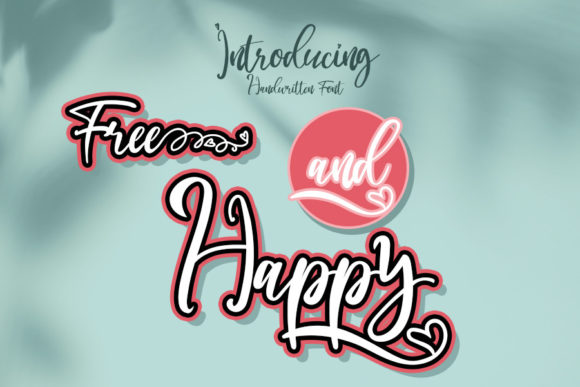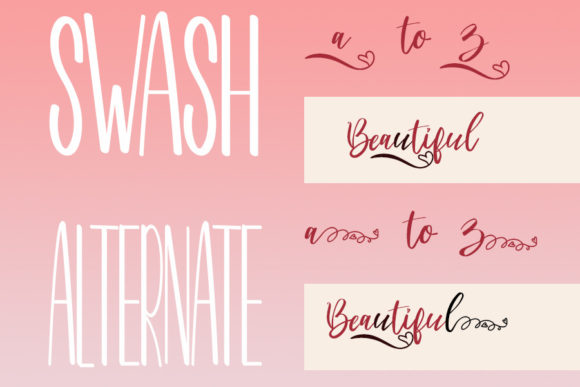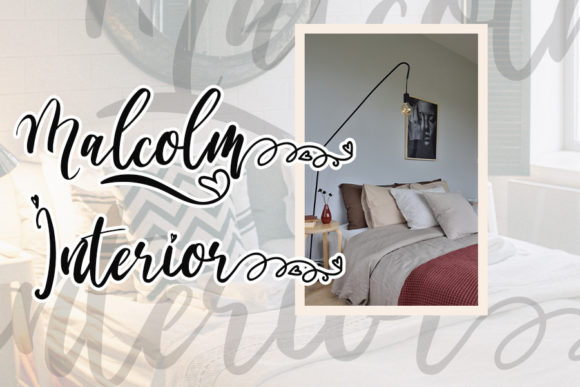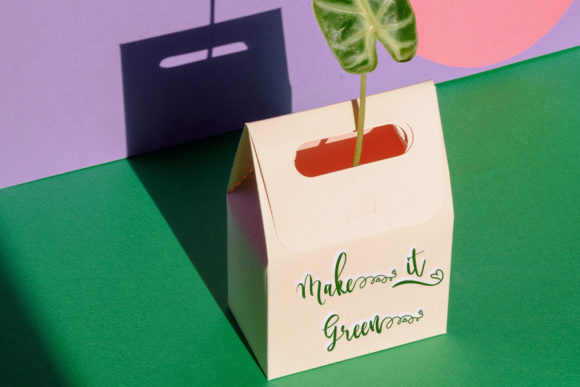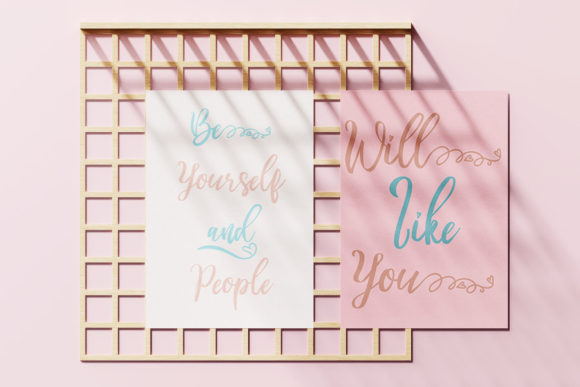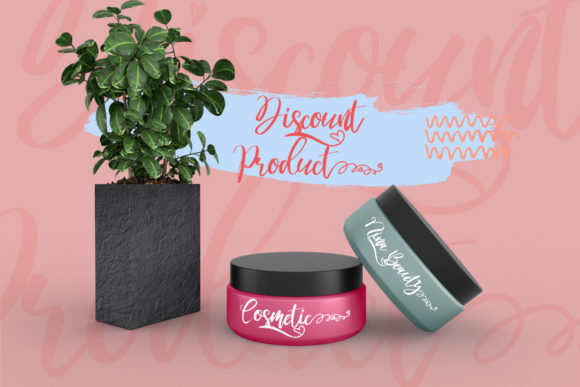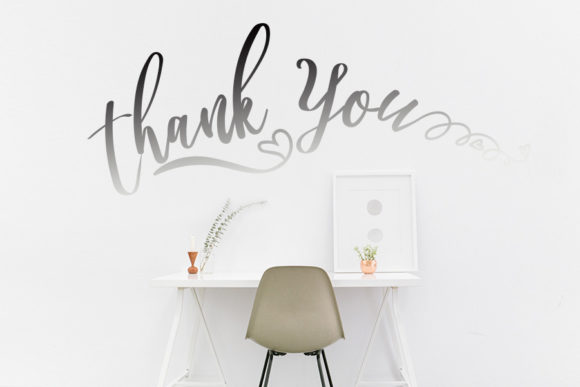
Free and Happy Font
About Free and Happy Font
Free and Happy is a fun and beautiful lettered script font, featuring lovely ornaments. This original look will appeal to a wide range of crafty ideas, from letterheads and titles, to stationery.